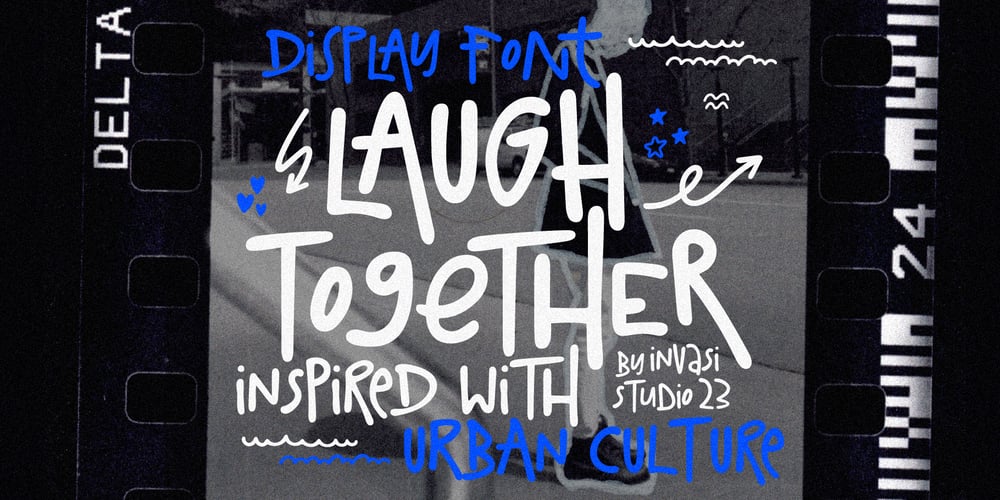
Laugh Together Font Family was designed by Gha Arizal and published by Invasi Studio. Laugh Together contains 1 styles and family package options. Laugh Together is a dynamic display font inspired by urban streetwear culture and the vibrant world of brush paint tagging graffiti. With its bold and expressive style, Laugh Together makes a fun and bold statement in any design. This all-caps font features a complete set of A-Z alternates, allowing you to experiment and create unique combinations. Additionally, Laugh Together supports multilingual characters, making it versatile for various language requirements.